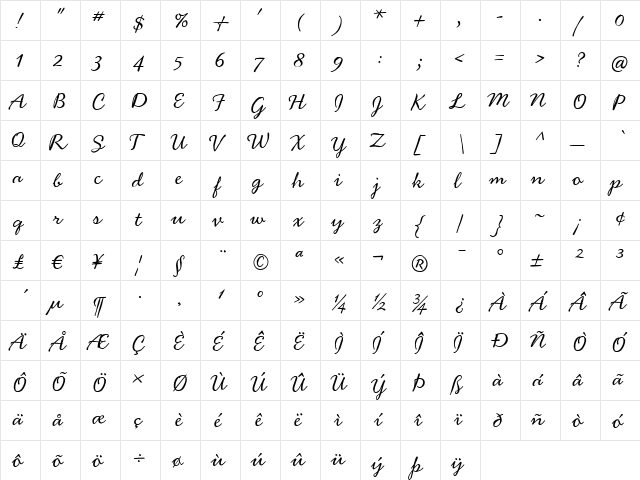
Handsome Regular
Design Context for Handsome Typeface
Handsome brings a calligraphic fluidity to the page — its connecting strokes and expressive curves give it an unmistakably human quality.
Font Pairing: Combine Handsome with a simple geometric sans for maximum contrast — the tension between flowing curves and clean structure is a classic typographic pairing.
Pro Tip: Use Handsome for short runs of text — names, titles, or taglines. Extended body copy in script faces tires the eye quickly.